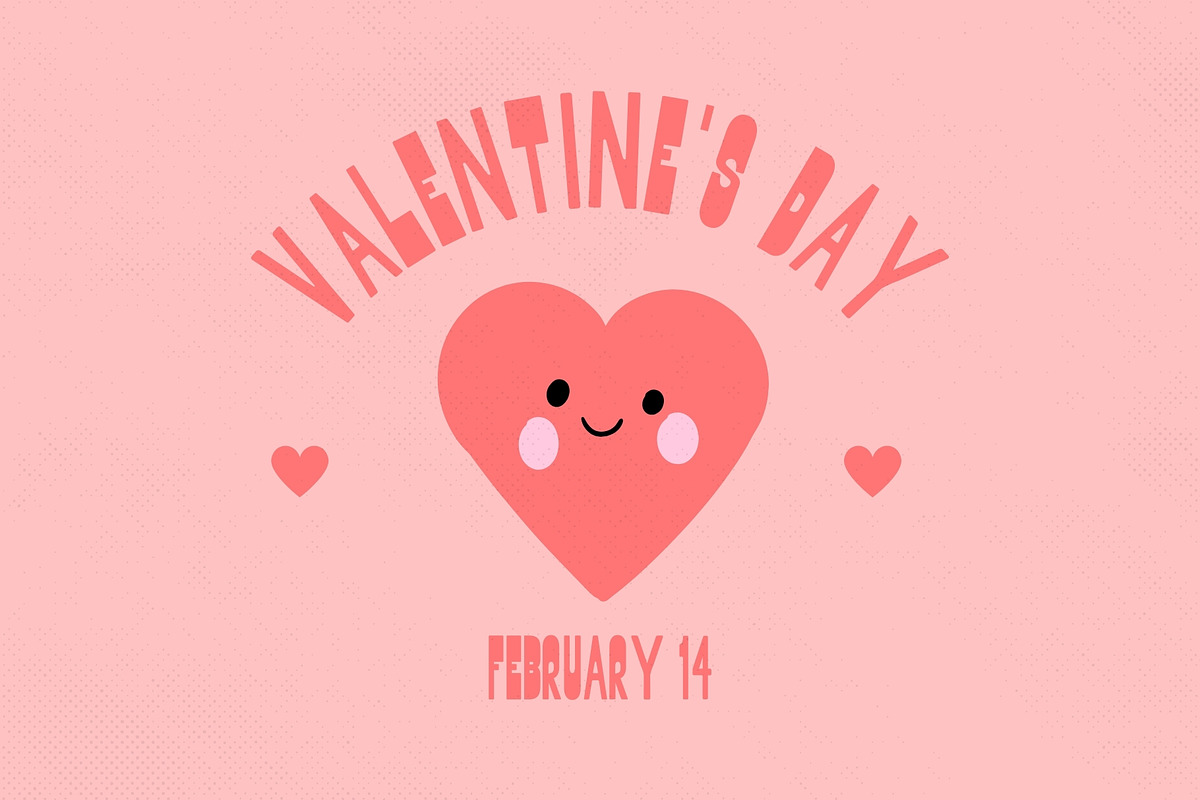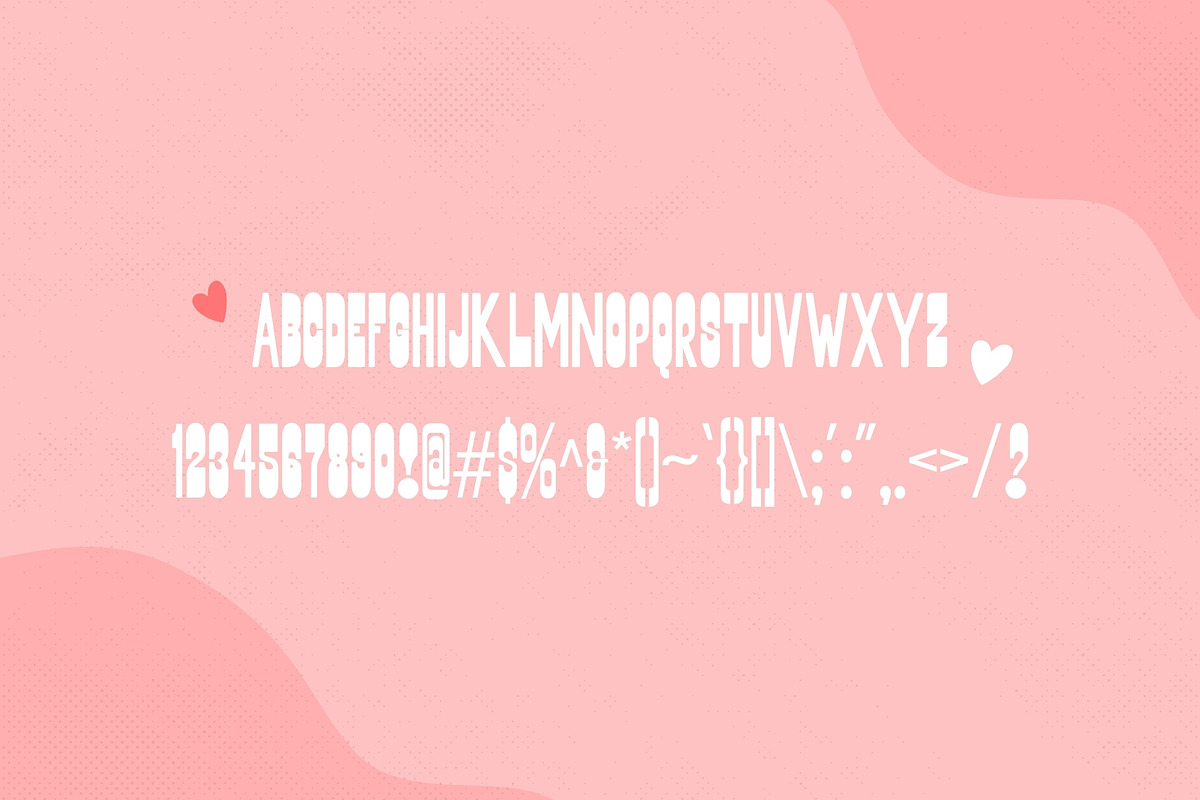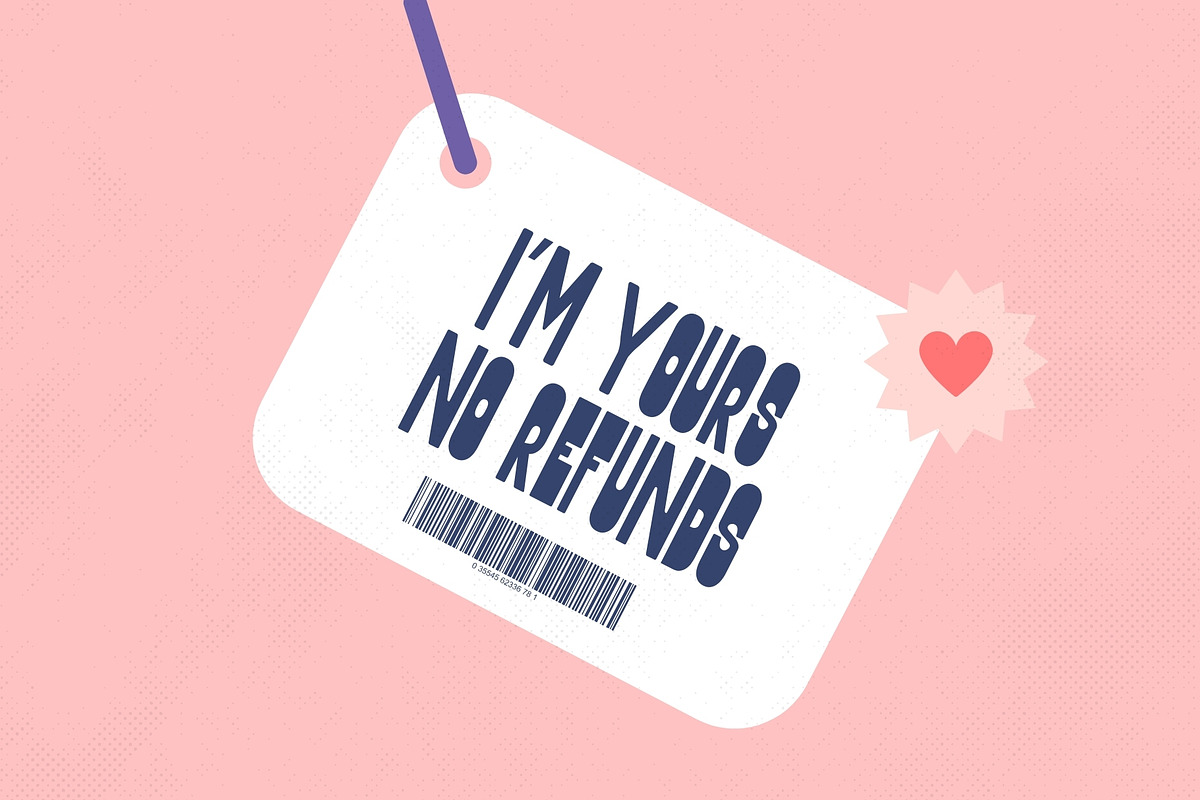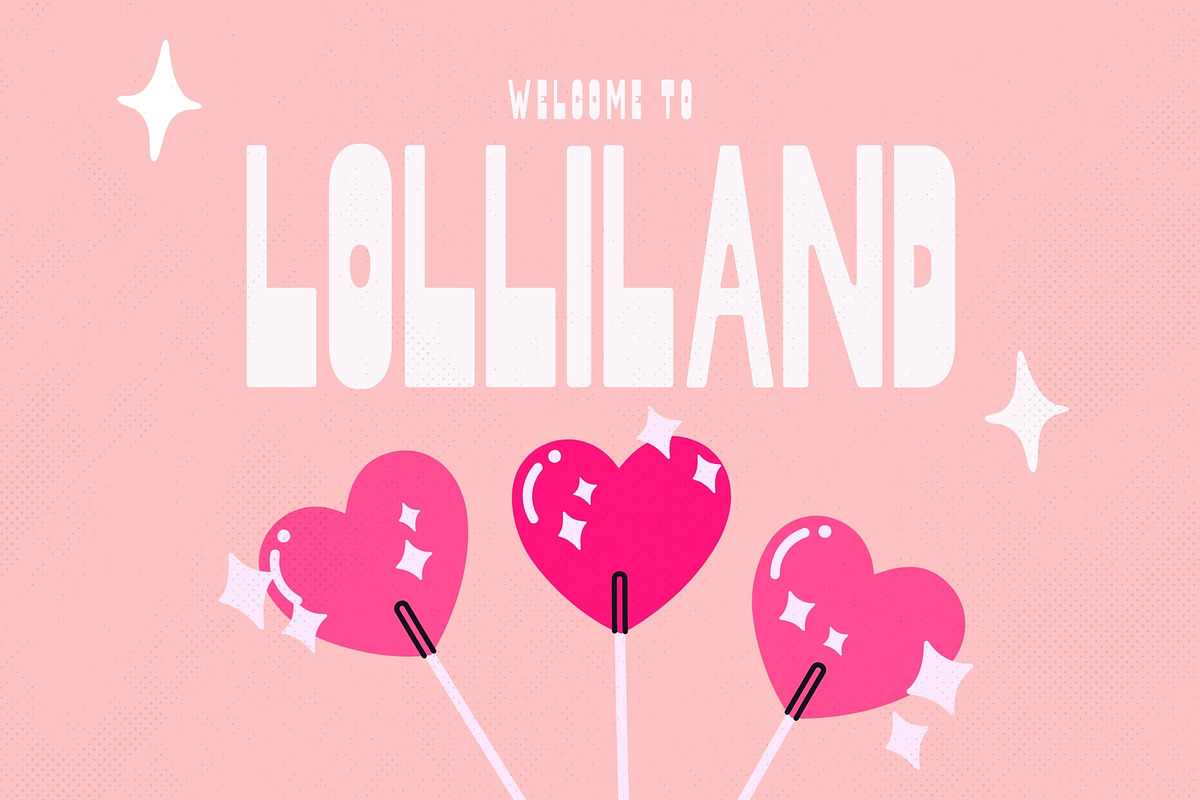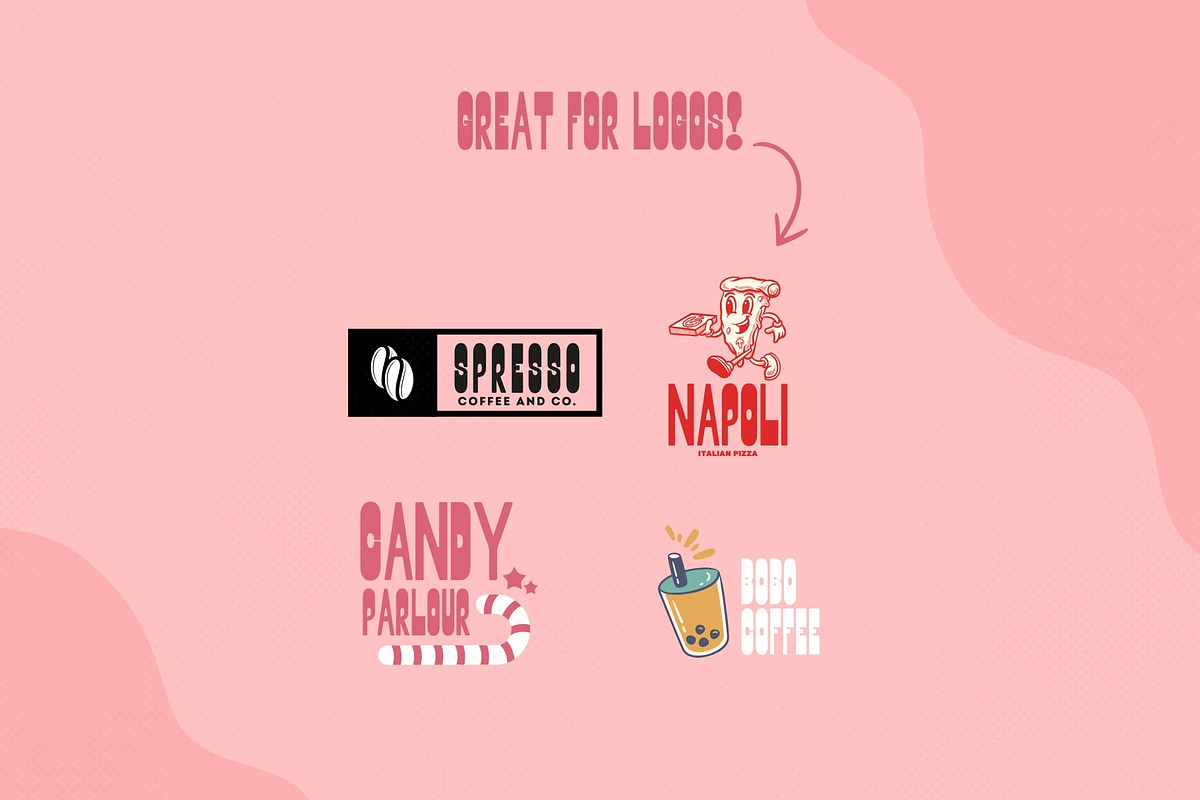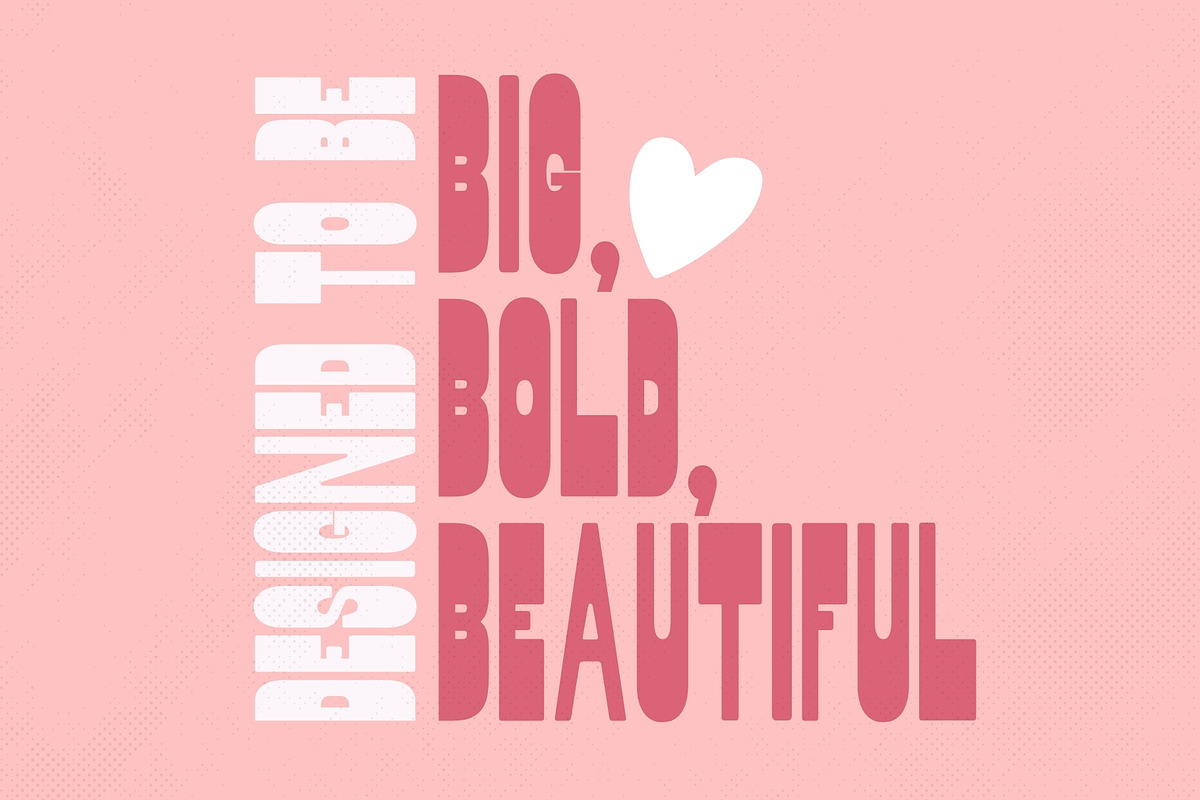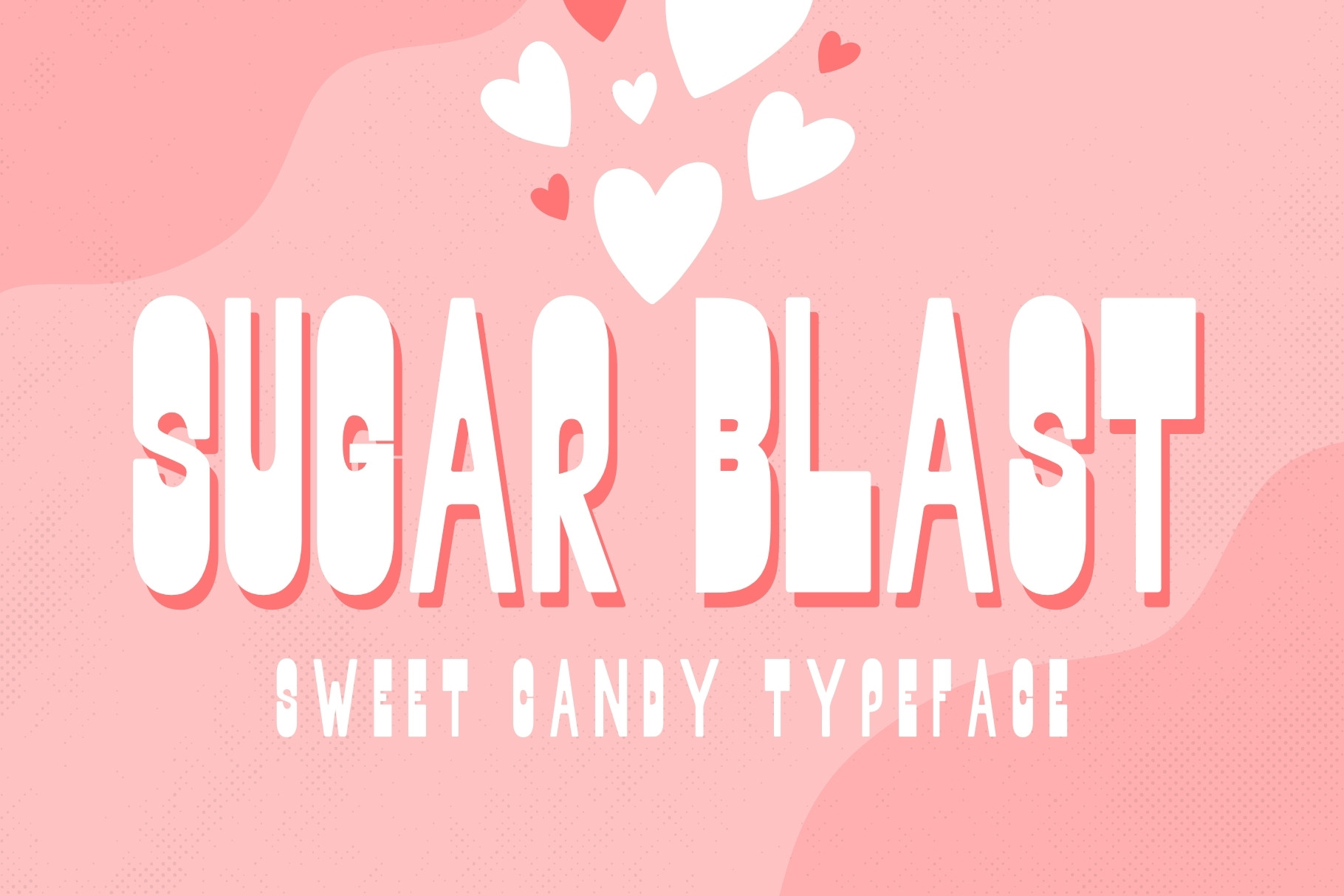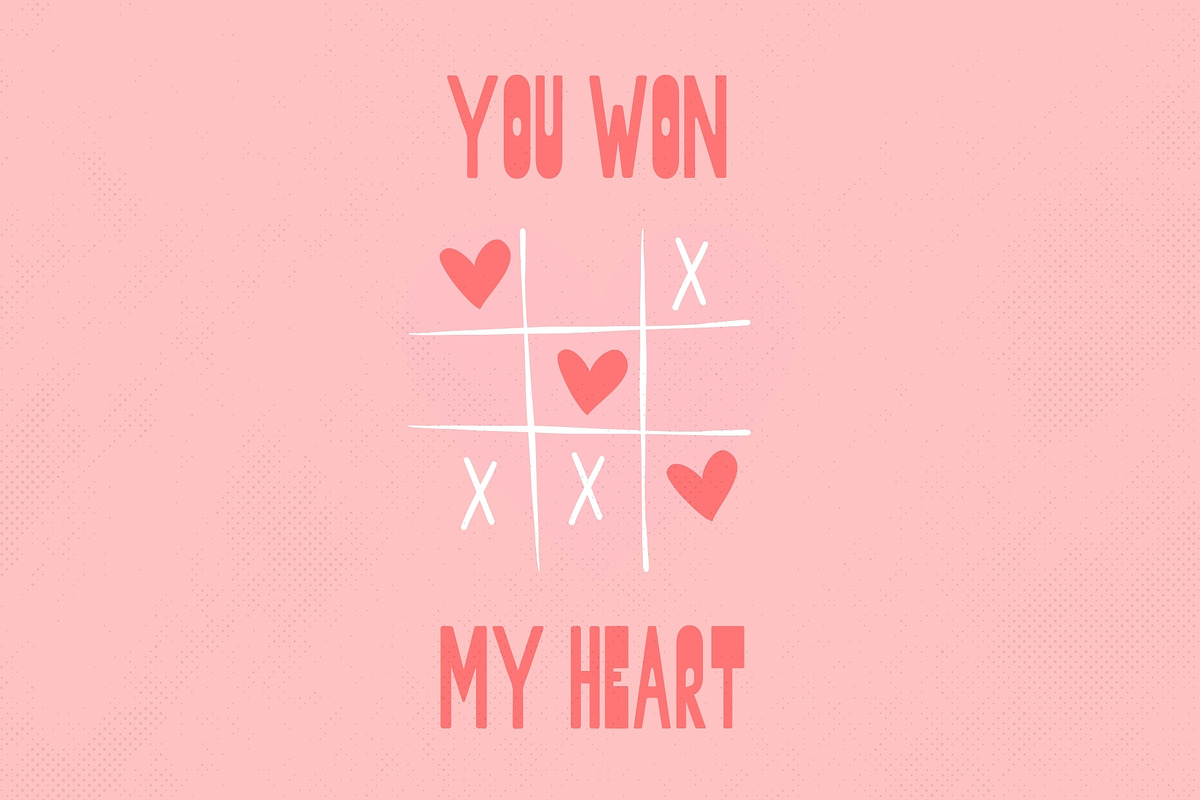
Sugar Blast - Sweet Typeface
Step into a sugar-coated time machine with Sugar Blast, a bold and bubbly all-caps typeface inspired by the playful charm of 1950s-60s advertisements. Bursting with vintage fun and vibrant personality, this font is perfect for candy packaging, sweet shop logos, playful branding, kids’ projects, and anything that needs a pop of nostalgic joy!
Designed to be big, bold, and beautiful, Sugar Blast thrives in large sizes, making it the ultimate choice for headlines, posters, and eye-catching displays. With its soft curves, lively letterforms, and a sprinkle of retro whimsy, this typeface adds a sense of fun, energy, and carefree delight to any project.
So whether you’re designing for a retro candy brand, a fun party invite, or a playful logo, Sugar Blast is ready to bring the sweetest vibes to your work!
- Best for: Logos, candy packaging, posters, kids’ projects, and nostalgic branding.
- Not ideal for: Small text or long paragraphs (keep it BIG and BOLD for maximum impact!).
Unwrap the fun and let your designs POP with Sugar Blast!